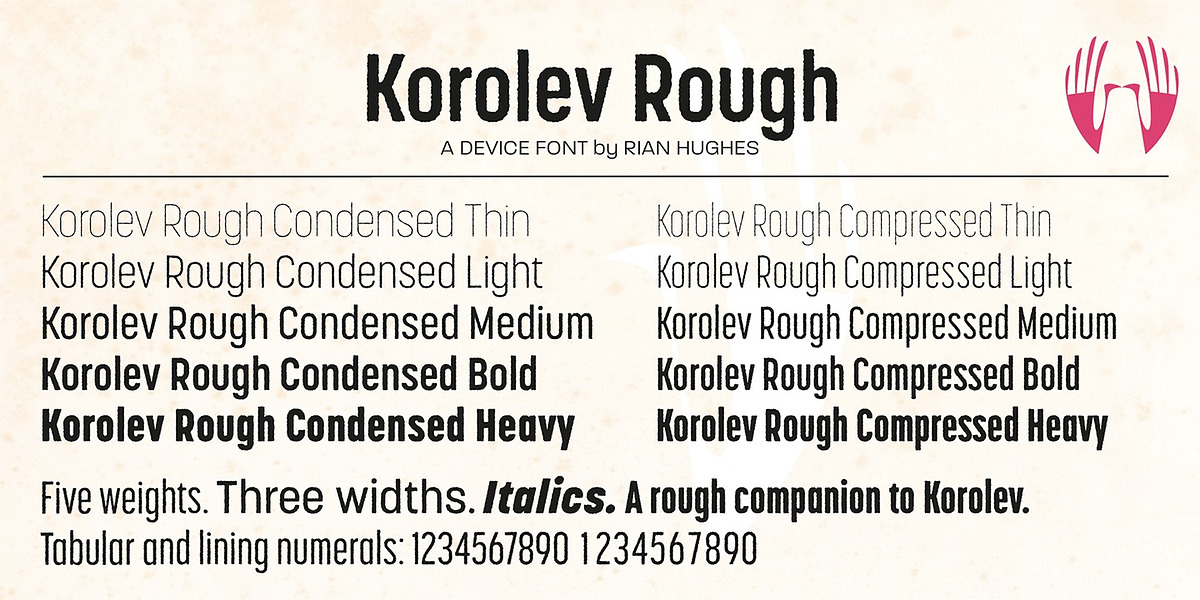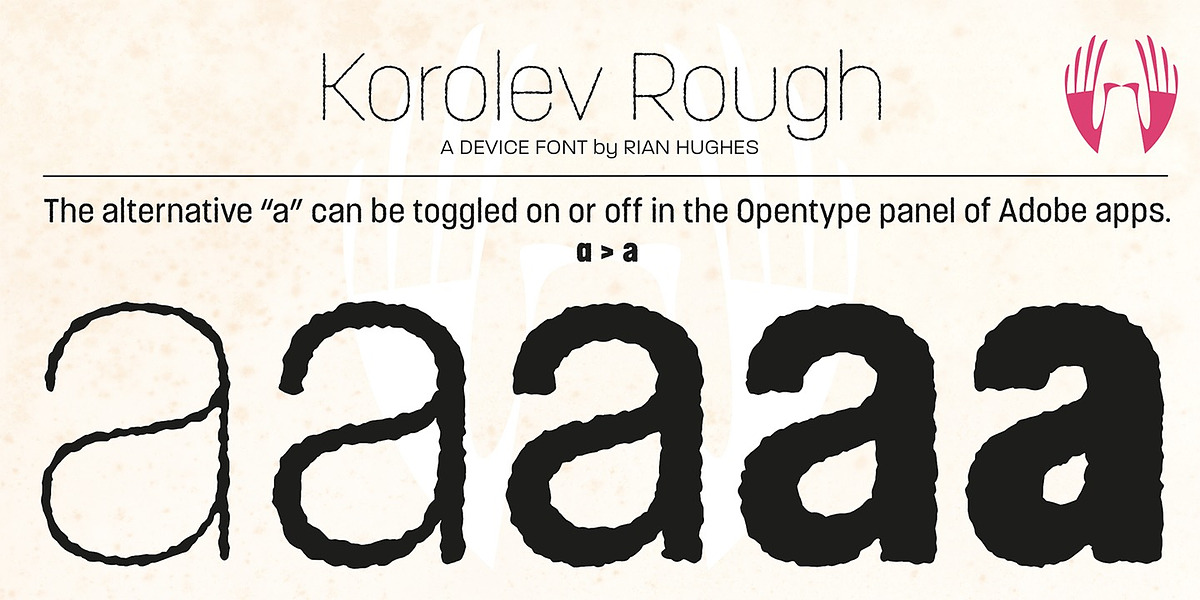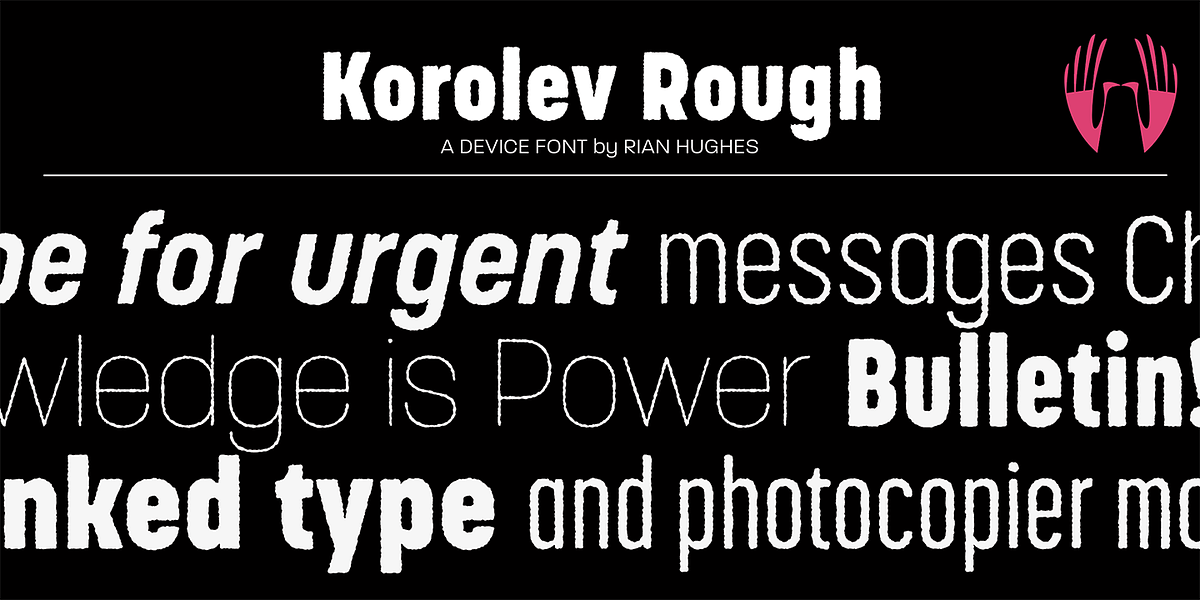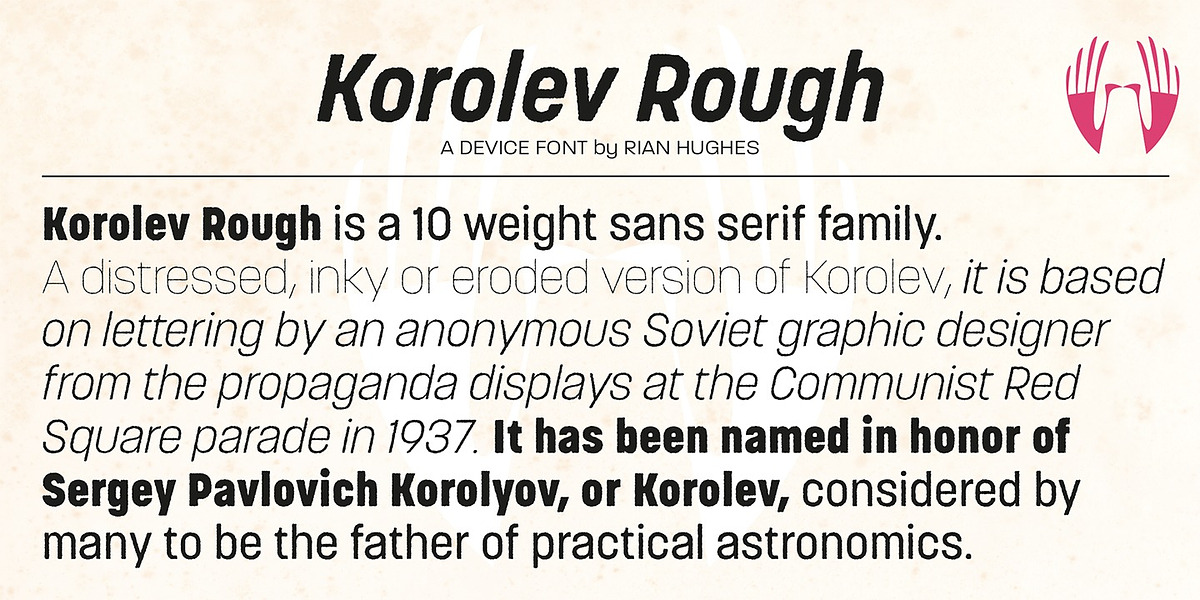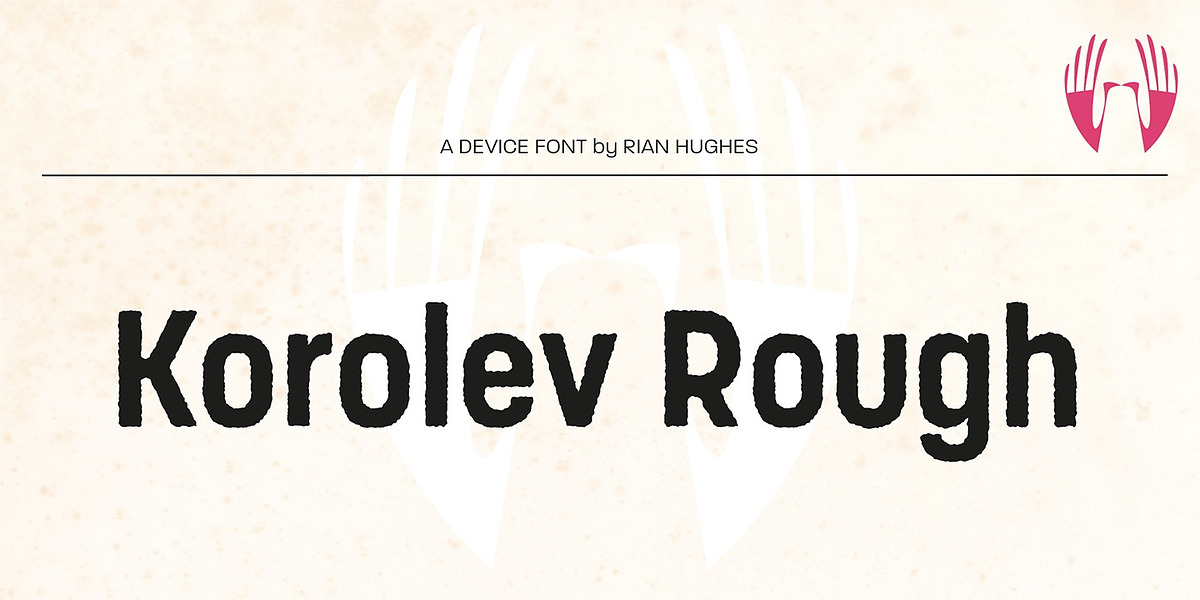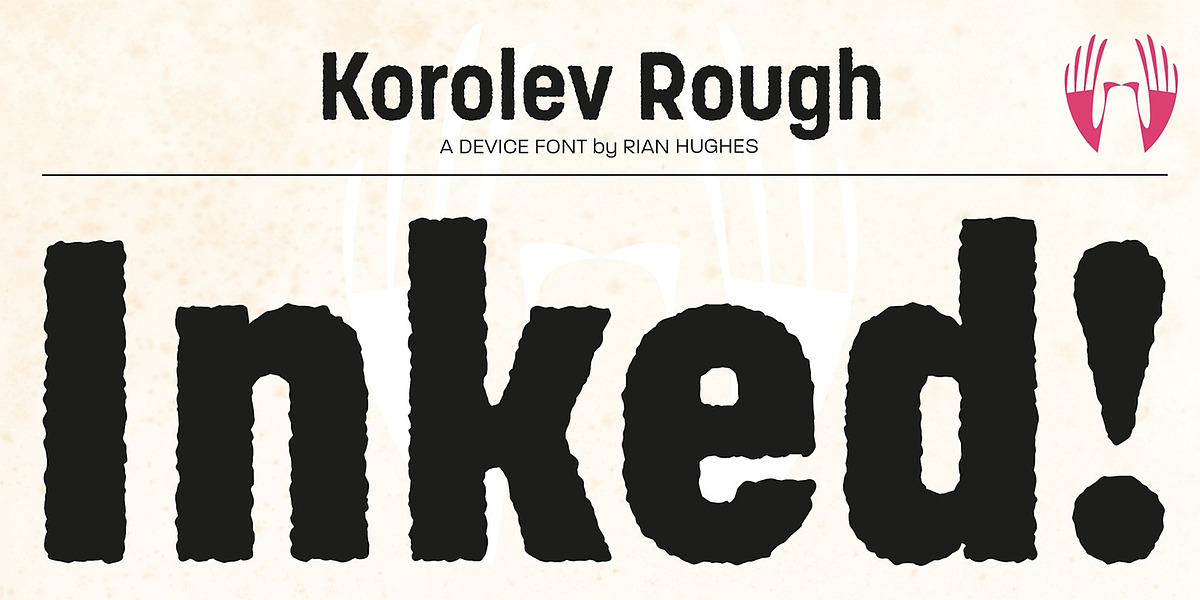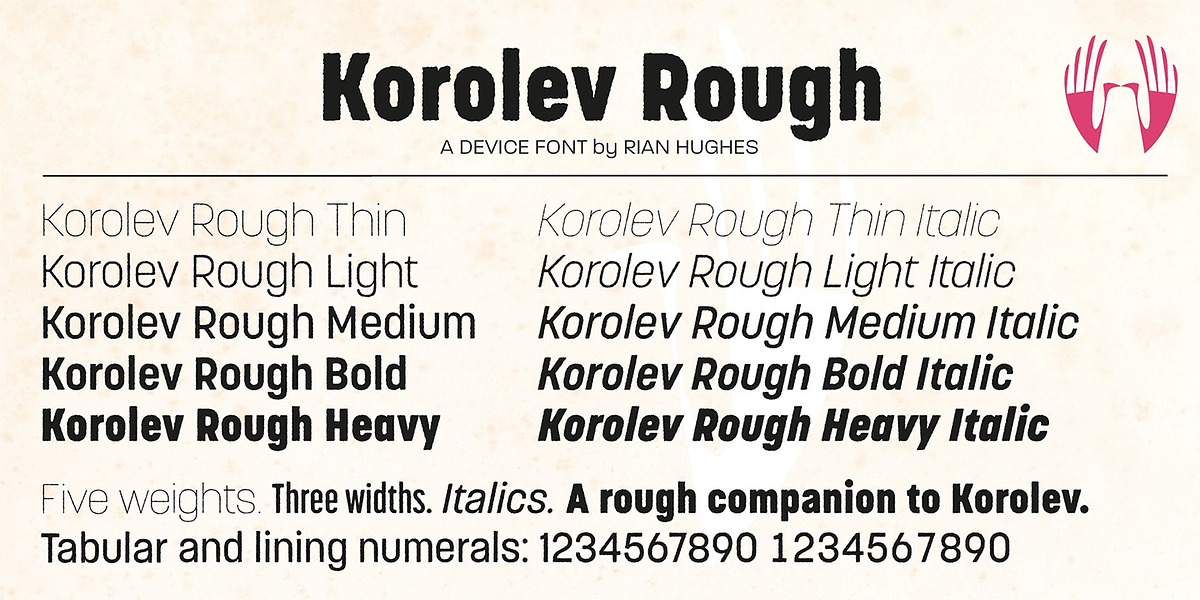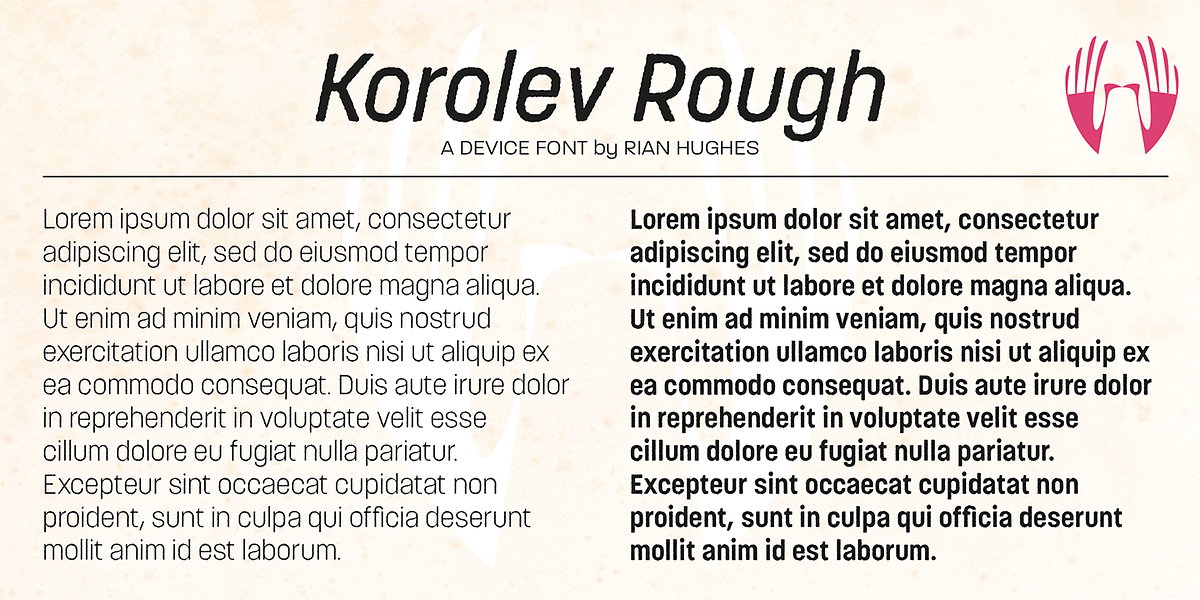
Korolev Rough
Korolev Rough is a 20-weight sans serif font inspired by lettering from Soviet propaganda displays. It features a rough texture and includes an alternate double-story 'a' for each weight and style.